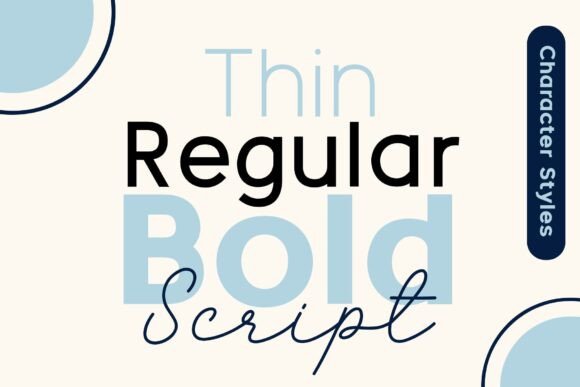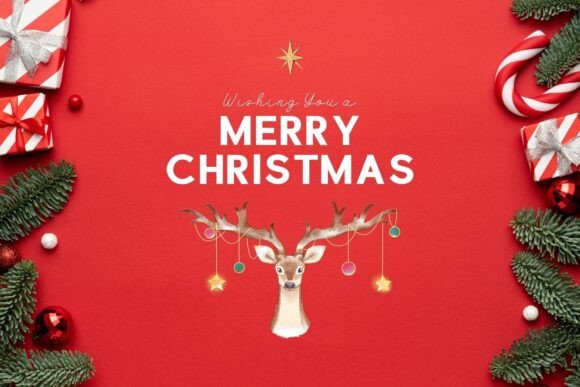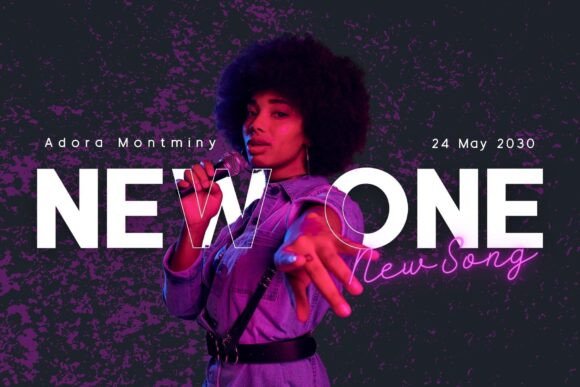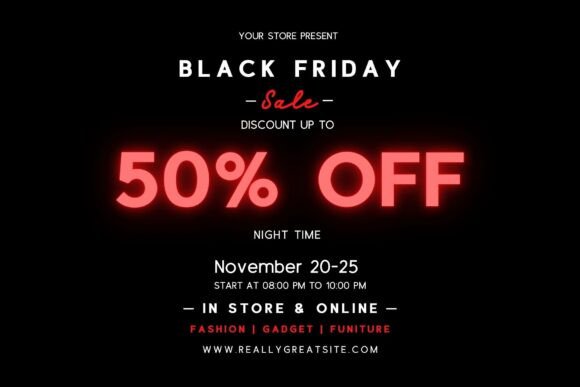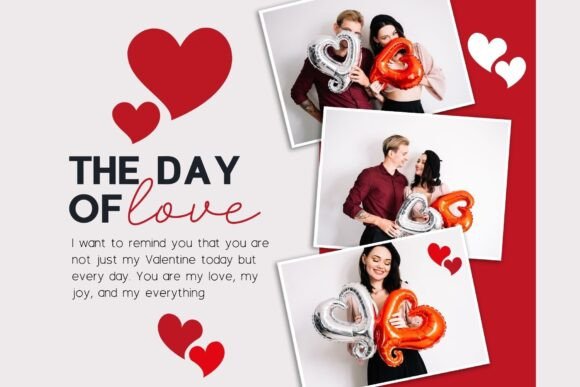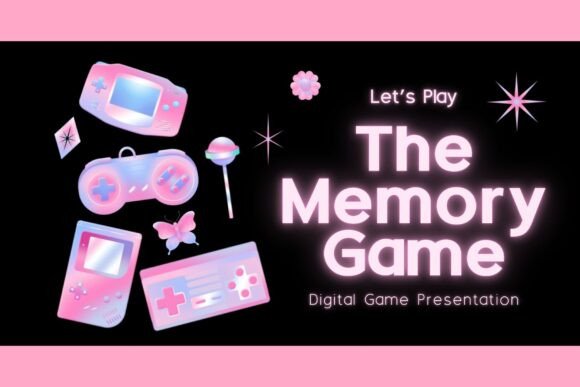
Introduction to Fox Nuvira & Fox Petalia Font
As designers, we’ve all been there – staring at a blank canvas, trying to bring a creative vision to life. The perfect font can make all the difference. That’s why we’re excited to introduce you to the Fox Nuvira & Fox Petalia Font, a dynamic duo that’s about to revolutionize your design projects.
This high-quality font duo offers the best of both worlds: Fox Nuvira, a clean and modern sans serif font family, and Fox Petalia, a stylish handwritten script font. With Fox Nuvira & Fox Petalia Font, you’ll have the perfect design resource for creating stunning logos, magazines, social media graphics, and more. Whether you’re working on a branding project, a wedding invitation, or a product packaging design, this font duo will give your creative project the timeless, elegant feel it deserves.
Key Features of Fox Nuvira & Fox Petalia Font
- High-quality design resource ideal for creative projects, offering a unique blend of modern and vintage elements.
- Includes two distinct font styles: Fox Nuvira and Fox Petalia, each with its own unique characteristics and applications.
- Suitable for a wide range of creative projects, from branding and marketing materials to digital art and graphic design.
Honest Review: Fox Nuvira & Fox Petalia Font
As a designer, I’m always on the lookout for high-quality design resources to elevate my creative projects. Recently, I had the chance to explore the Fox Nuvira & Fox Petalia Font, and I’m excited to share my honest review.
What works well: ✨ The Fox Nuvira & Fox Petalia Font is a stunning duo of fonts that offer a lot of versatility for design projects. The fonts are perfect for creating visually appealing headings and titles. The Fox Nuvira font has a beautiful, elegant feel that’s ideal for luxury or high-end branding, while the Fox Petalia font is more playful and suitable for modern designs.
- High-quality design resources
- Perfect for luxury or modern branding
Common Use Cases for Fox Nuvira & Fox Petalia Font
Some common use cases for Fox Nuvira & Fox Petalia Font include creating logos, branding materials, and marketing materials. The font’s transparent background makes it easy to layer with other design elements. You can also use it to create social media graphics, flyers, and brochures.